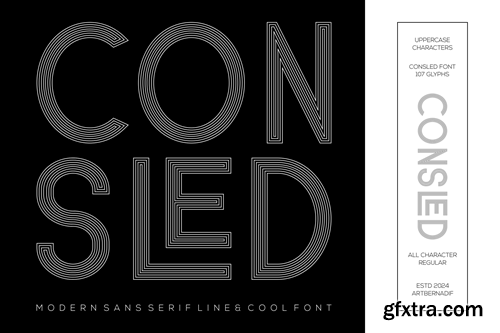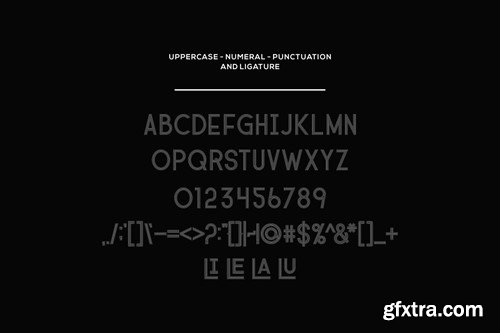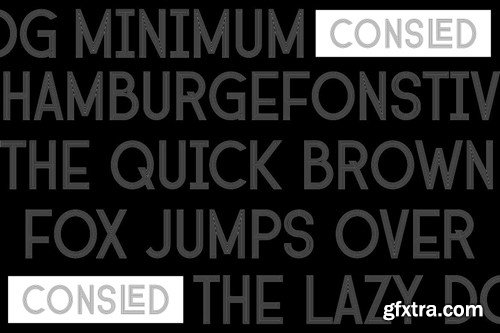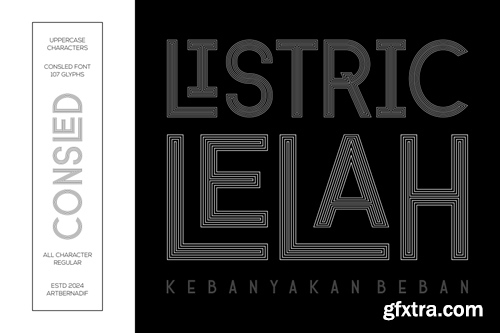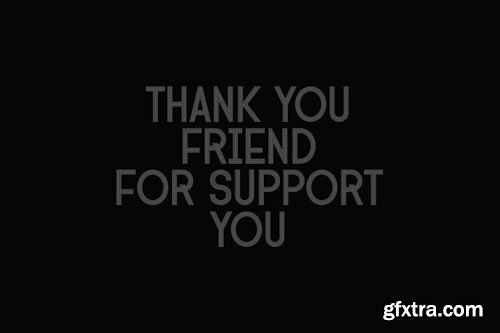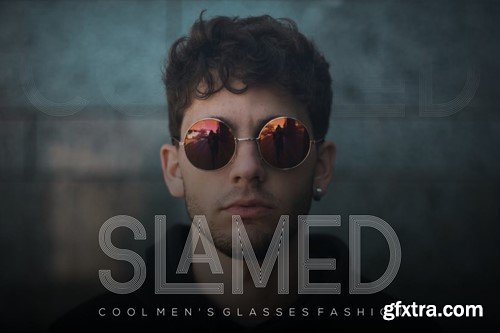
Conslined - 现代无衬线和酷字体 VLG6ZGV
Consled - Modern sans serif and cool font VLG6ZGV
Consled - Modern sans serif and cool font
Introducing our new product Consled Font Modern sans serif and cool font
Consled Font Modern Font is a Line and Cool display font. The font is suitable for any branding project like logo, t-shirt printing, esport, and many more. outstanding in a wide range of contexts.
• Consled Uppercase
• Consled Ligature